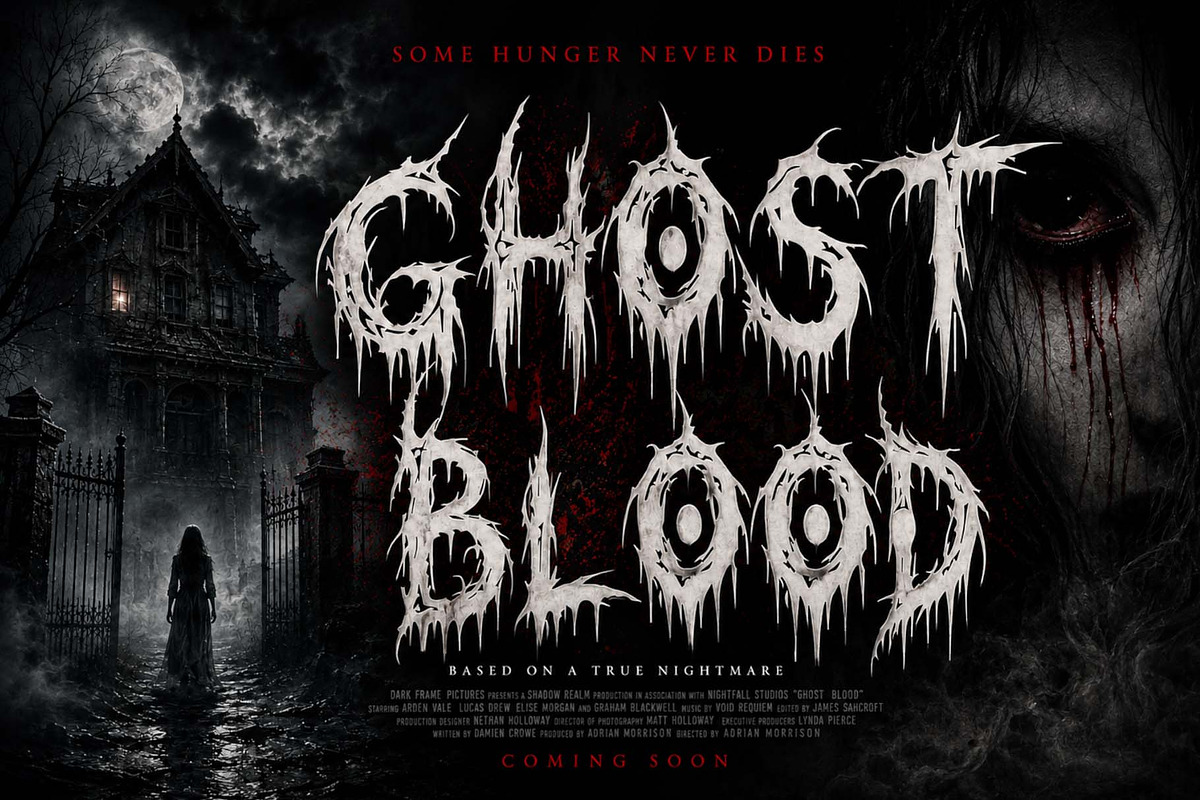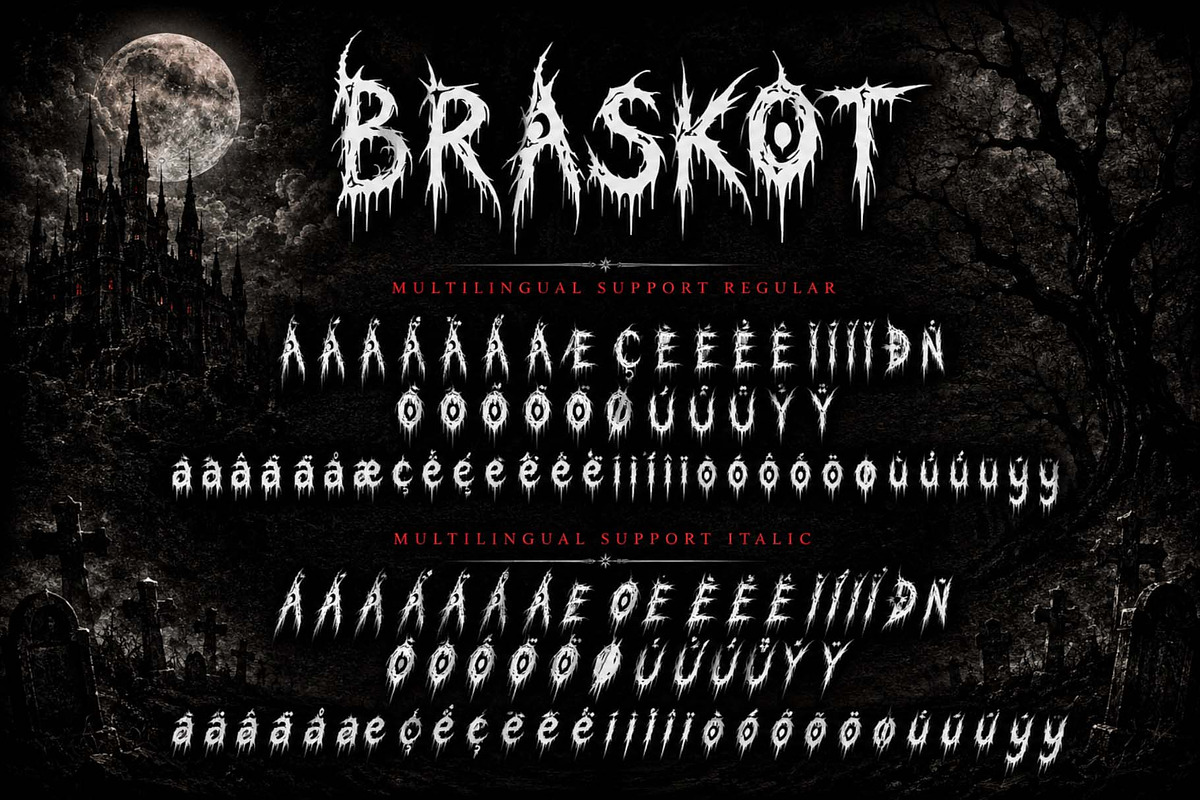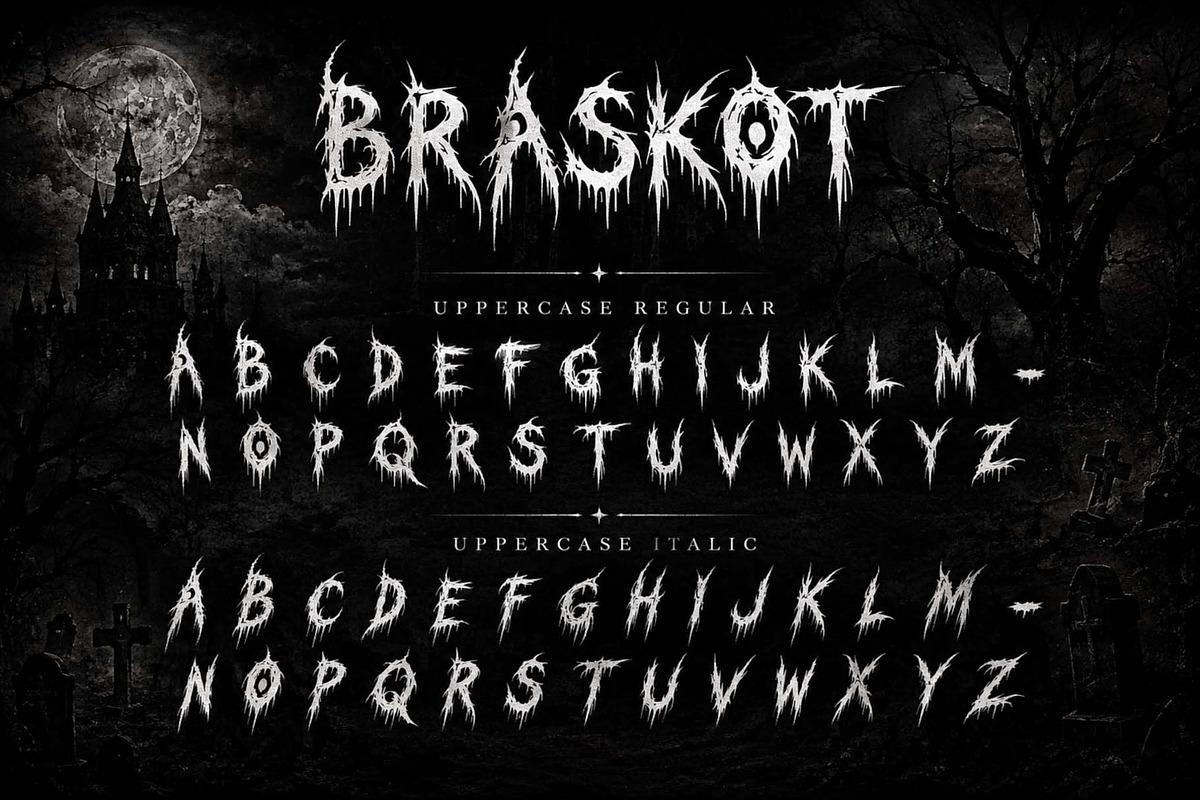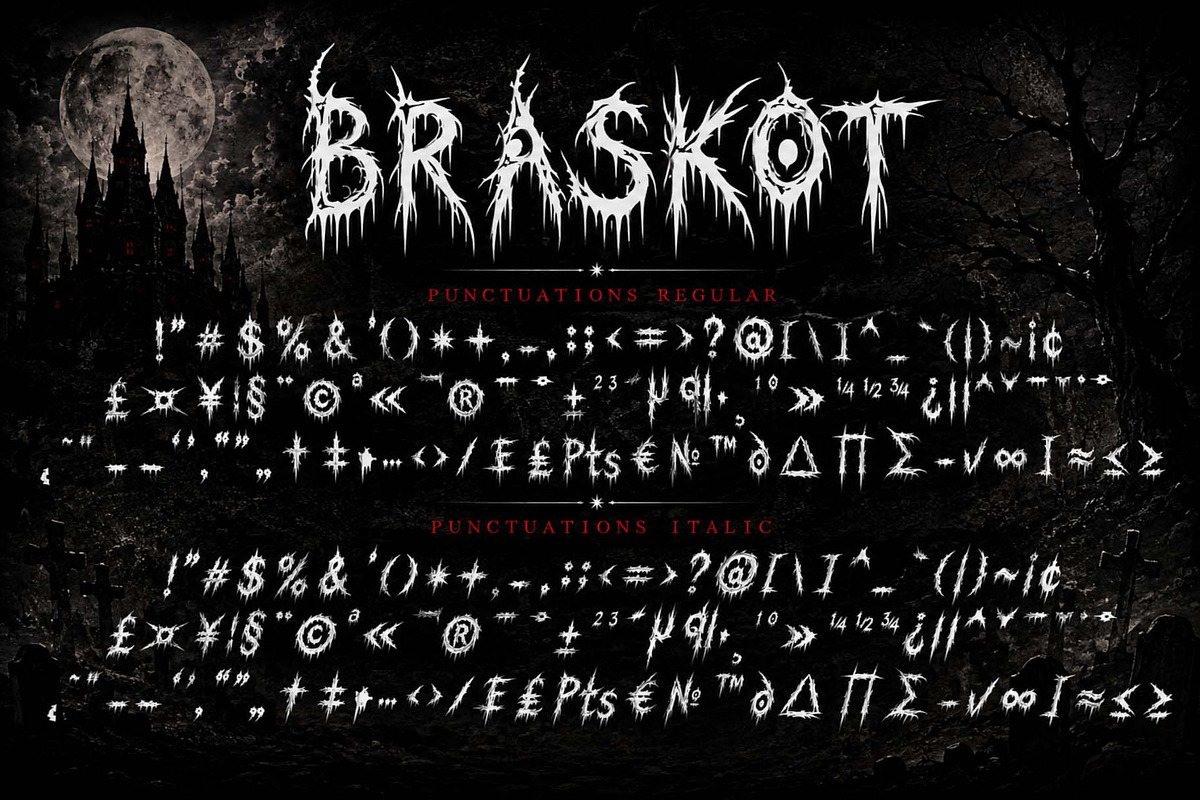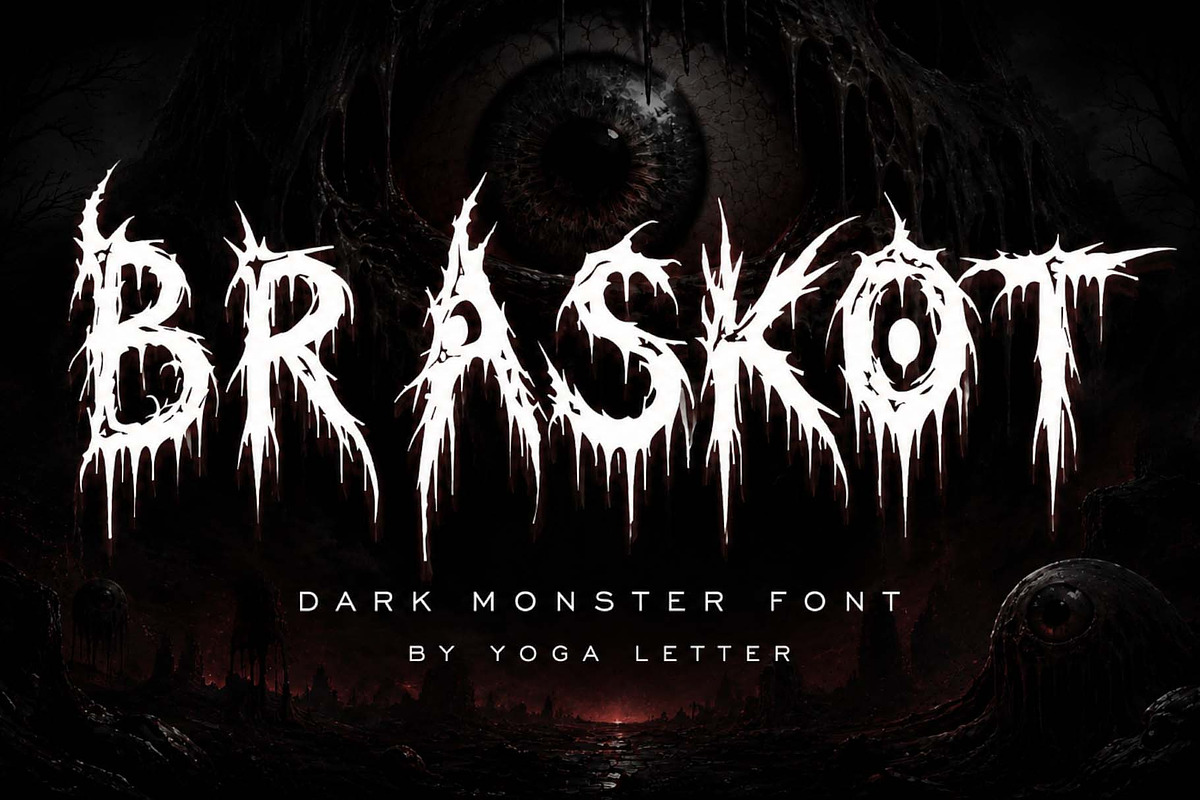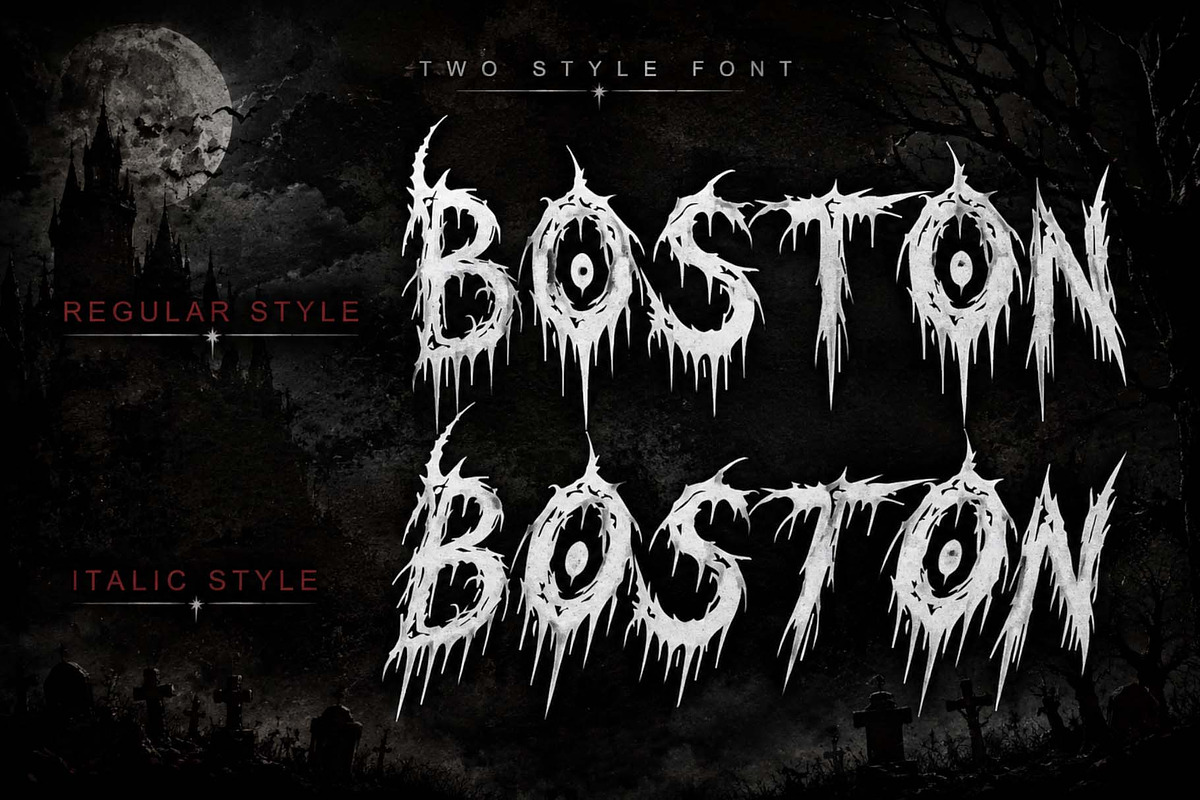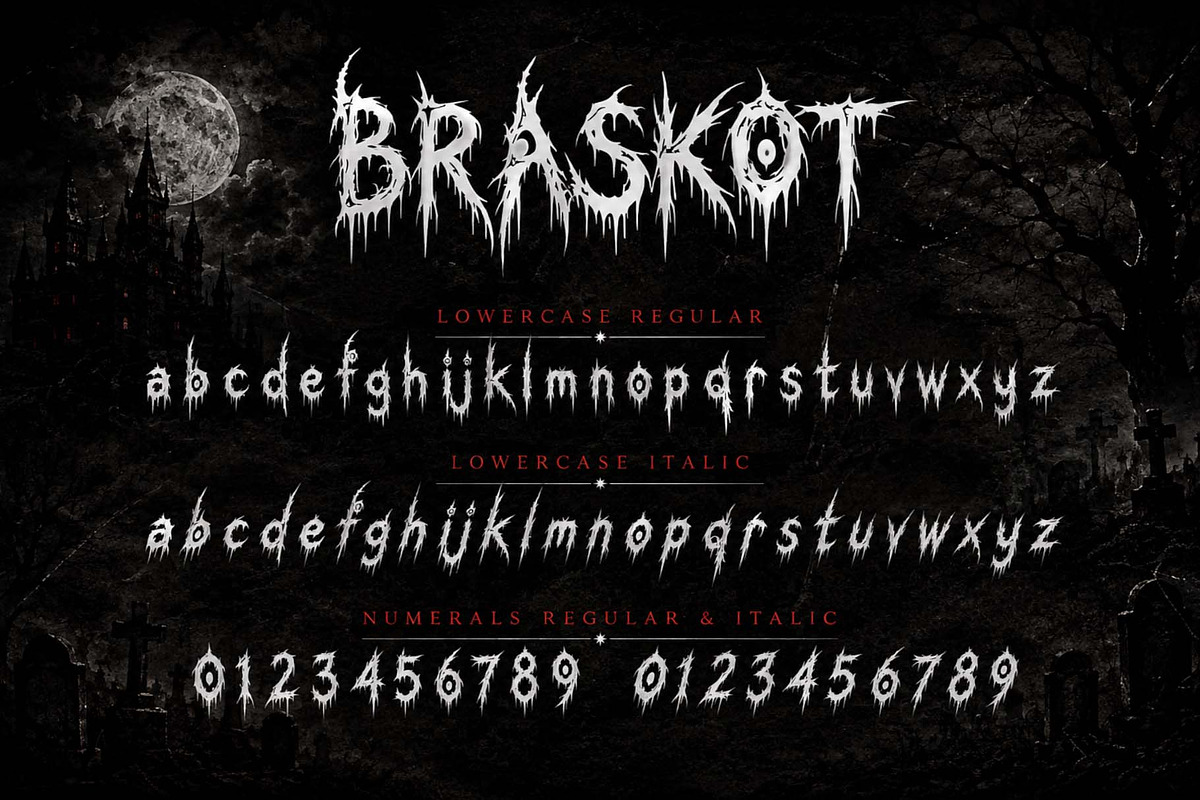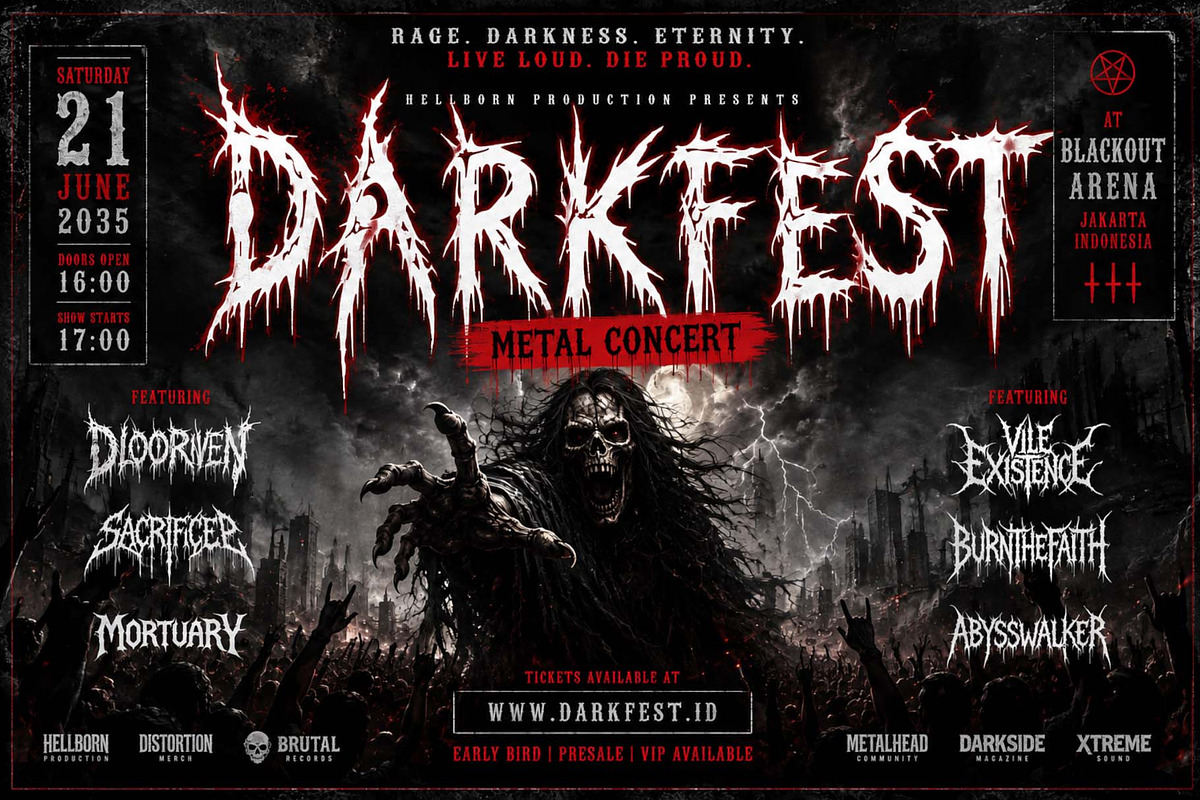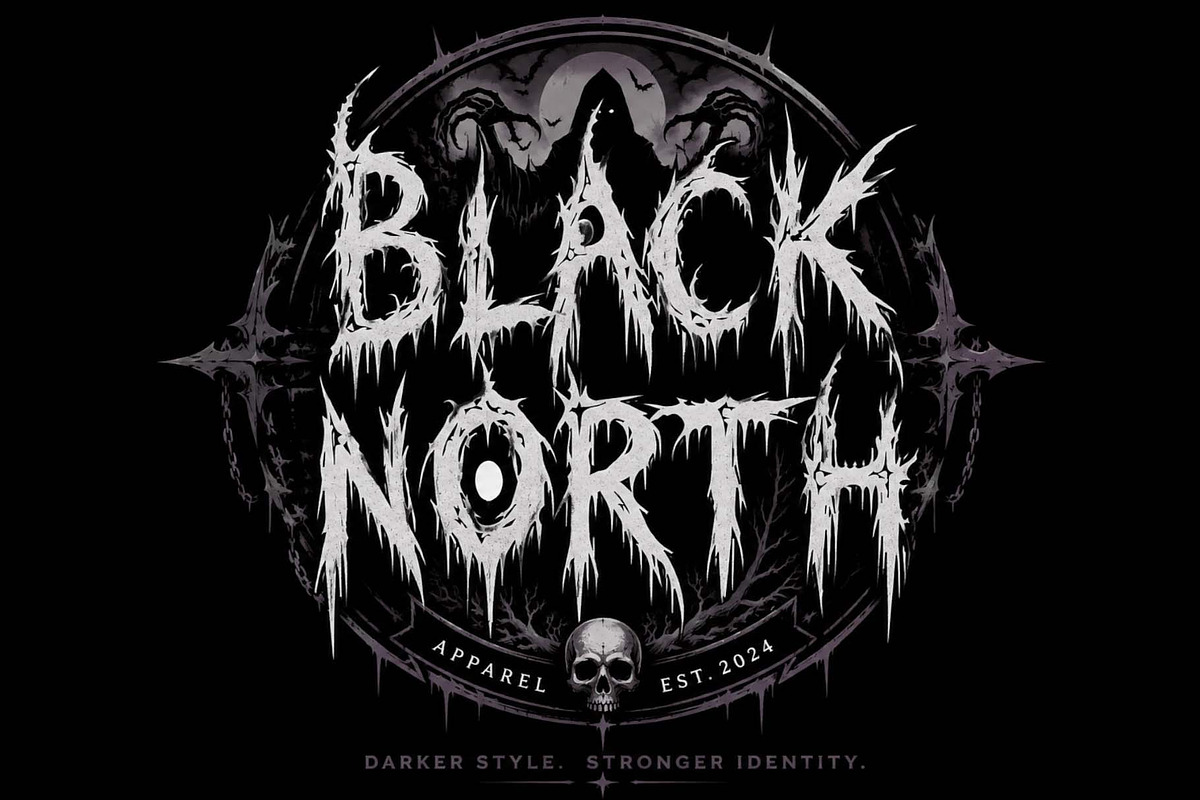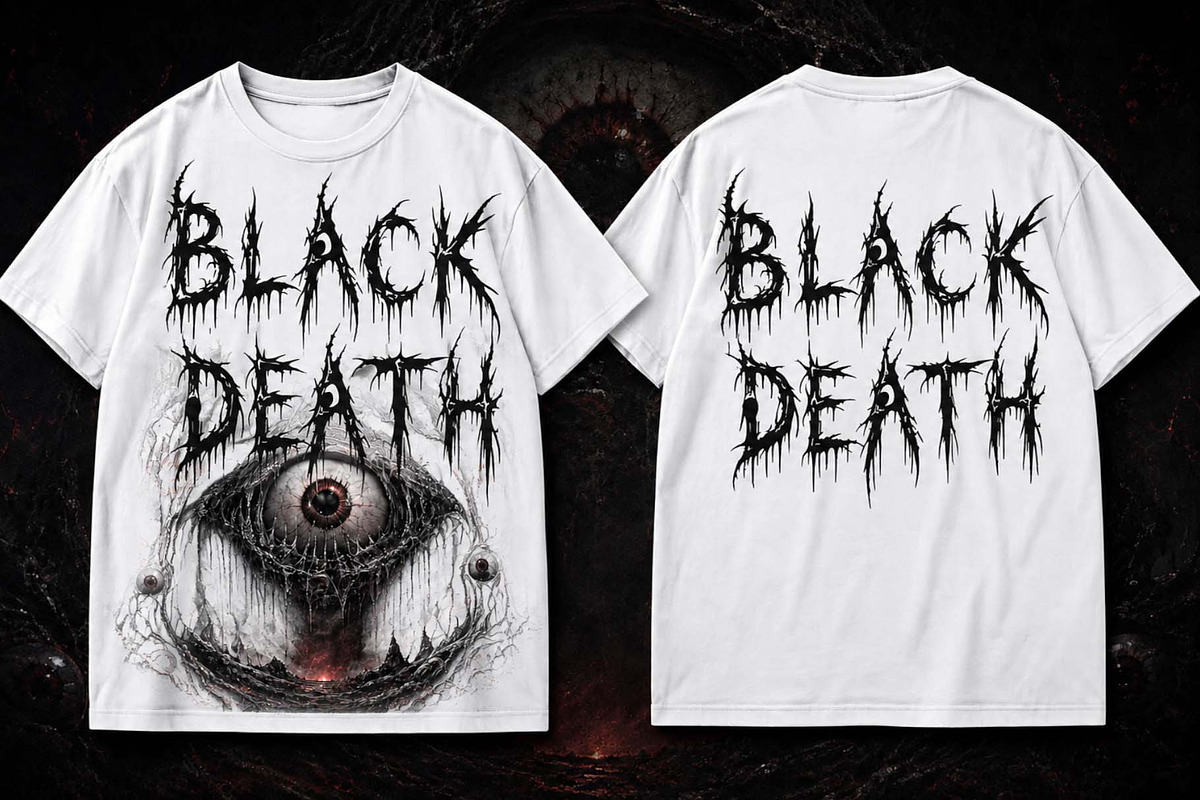
Braskot
Braskot is a dark and terrifying display font designed to bring an intense horror aesthetic to your creative projects. Featuring sharp, distorted letterforms, jagged edges, elongated strokes, and dramatic melting details, the font creates an aggressive, monster-like visual style. It includes uppercase and lowercase letters, numerals, punctuation, and multilingual support.
Inspired by creatures of darkness, horror movies, the realm of the supernatural, and extreme metal aesthetics, Braskot is perfect for horror and Halloween-themed designs, horror movie titles and posters, heavy metal and extreme metal artwork, dark-themed apparel and t-shirt designs, album covers, game titles and logos, haunted house attraction branding, dark fantasy art, and YouTube thumbnails or social media graphics.